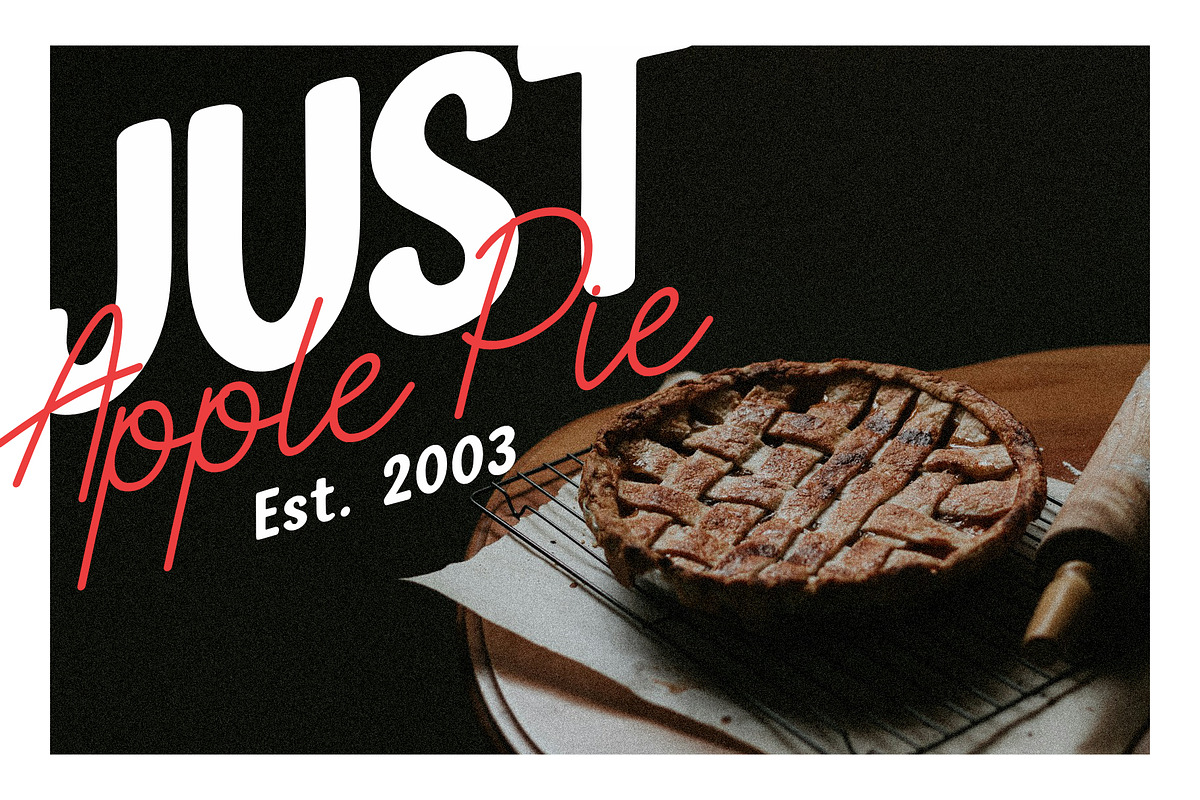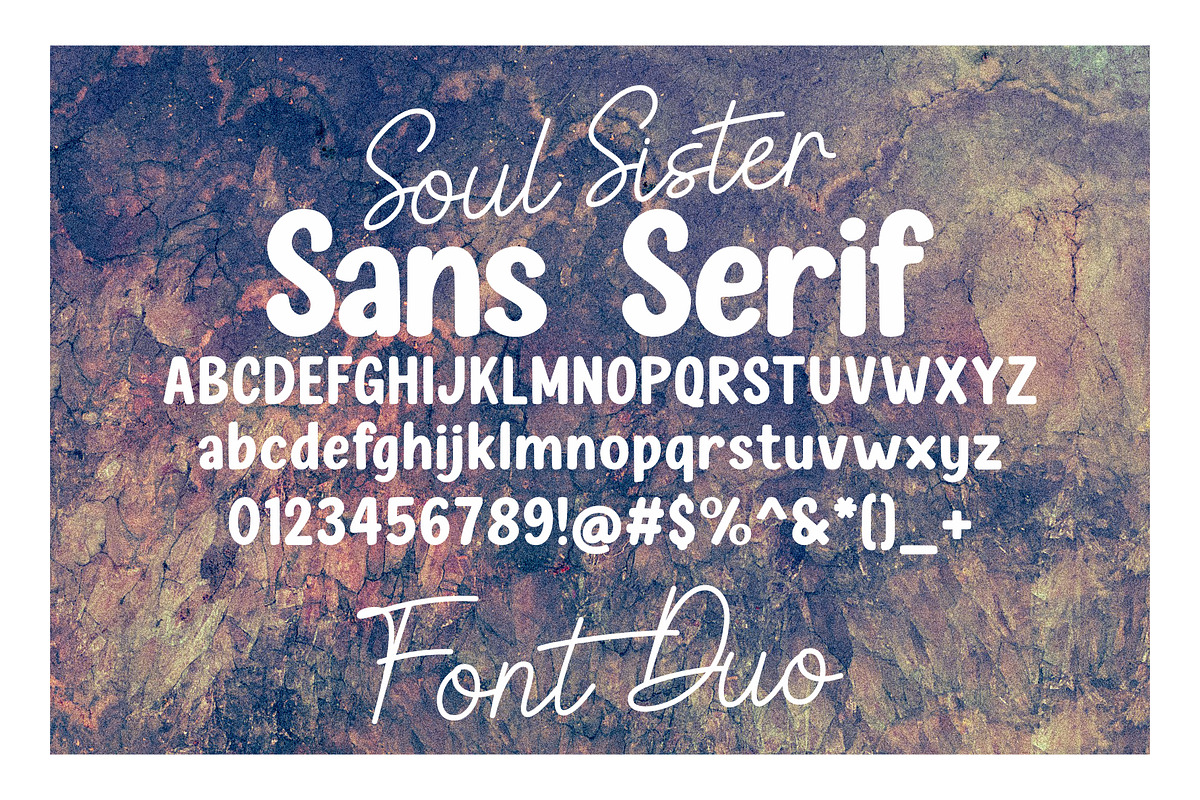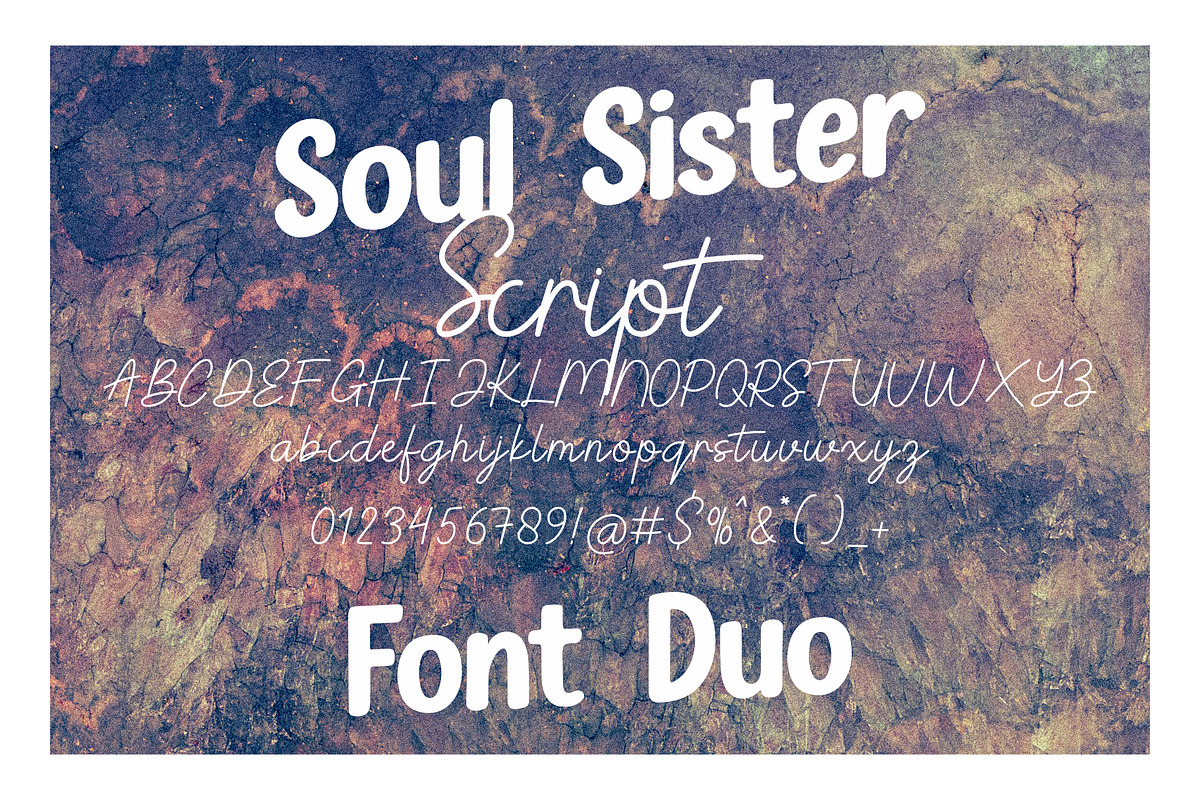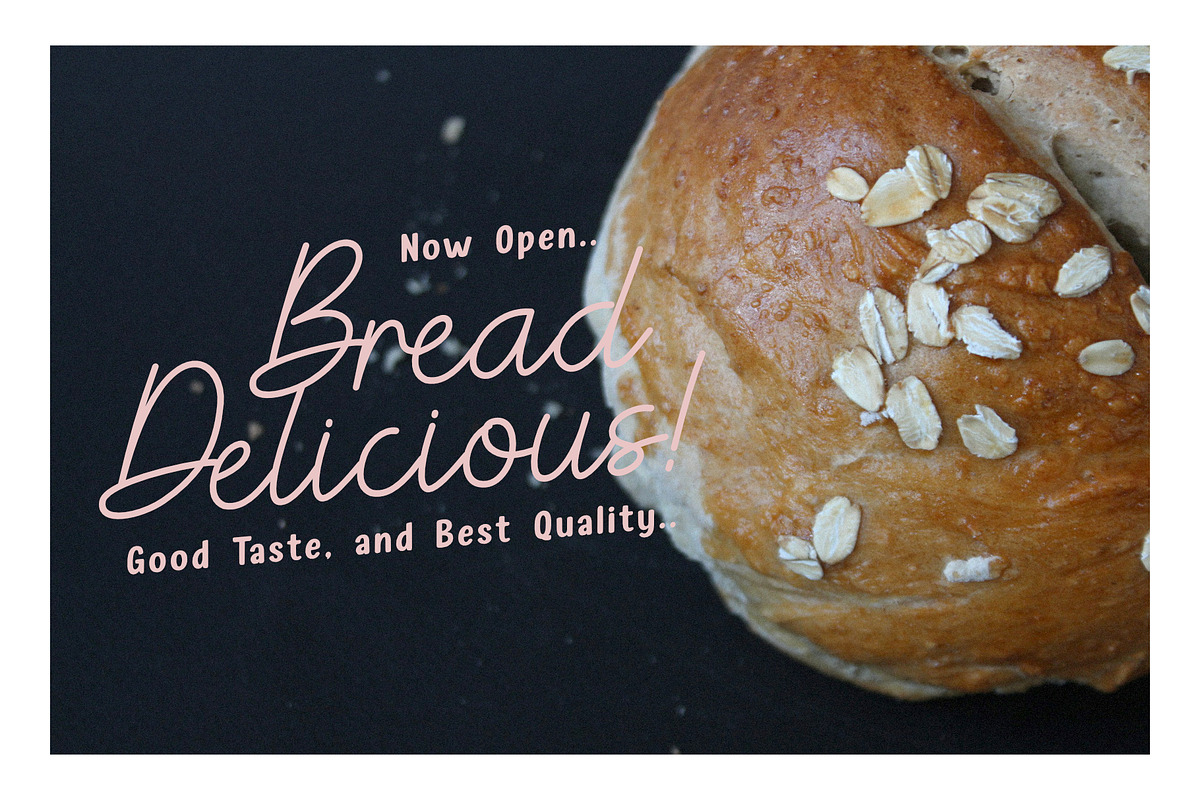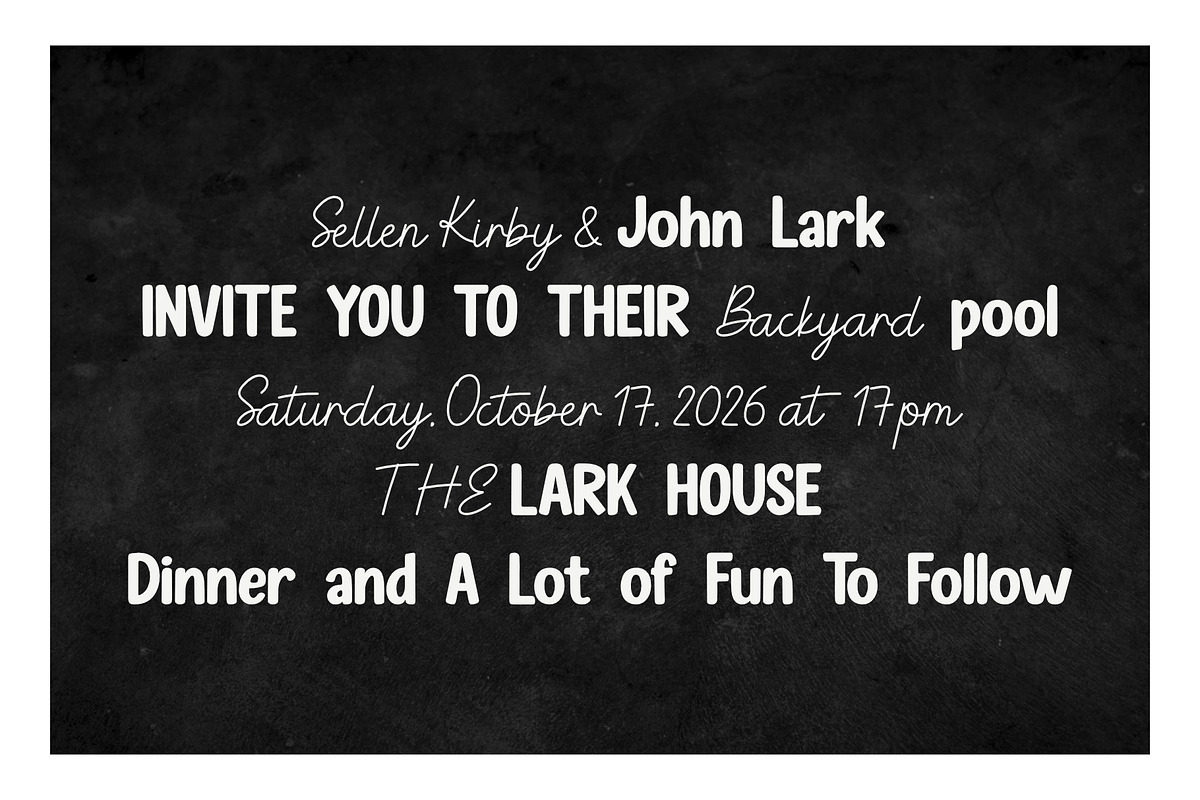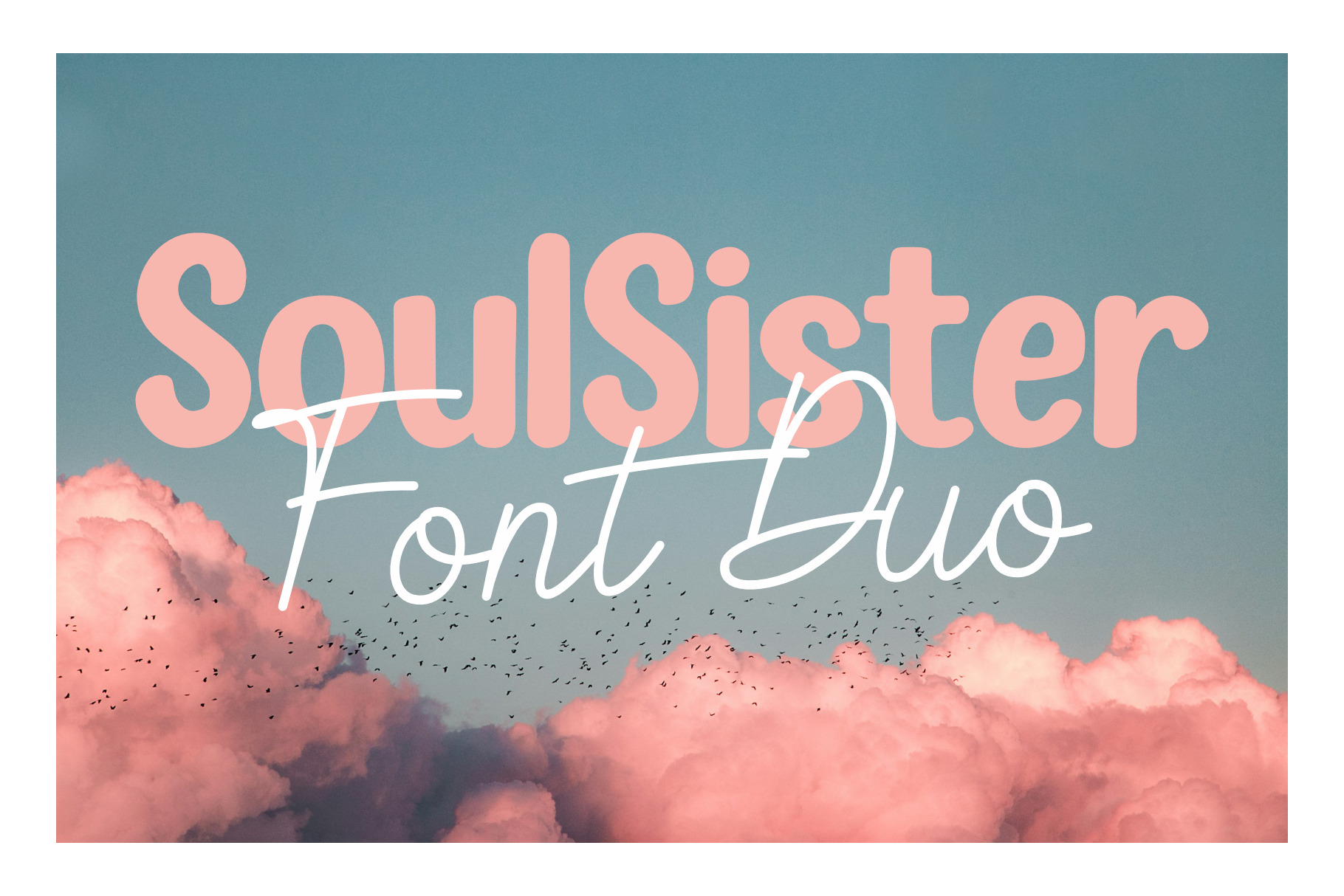
Soul Sister Font Duo
Soul Sister – Font Duo
Soul Sister is a beautiful and expressive font duo that blends a bold retro sans serif with a smooth handwritten script. This perfect pairing creates a stunning contrast between strong, confident letterforms and soft, flowing strokes — making your designs feel warm, stylish, and full of personality.
The serif font features rounded edges and a vintage-inspired shape that feels both playful and timeless. Meanwhile, the script font adds an elegant, natural touch with its fluid curves and effortless charm. Together, they create eye-catching typography for branding, packaging, social media, and more.
Soul Sister is ideal for logos, bakery branding, café menus, wedding invitations, posters, product packaging, quotes, and feminine brand identities. Whether you're creating something sweet and romantic or bold and modern, this duo gives you the flexibility to do both beautifully.
Create stunning combinations effortlessly and bring your creative ideas to life with Soul Sister Font Duo.